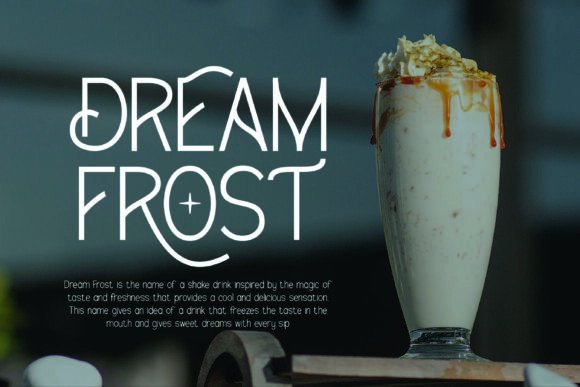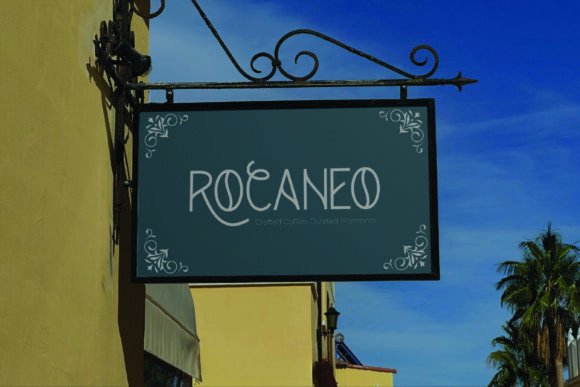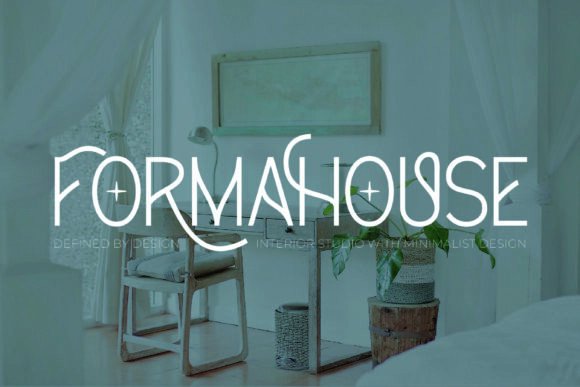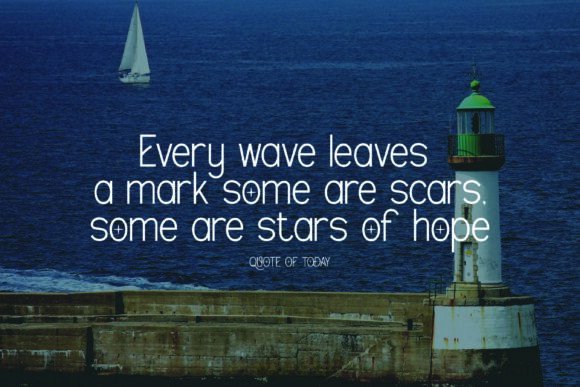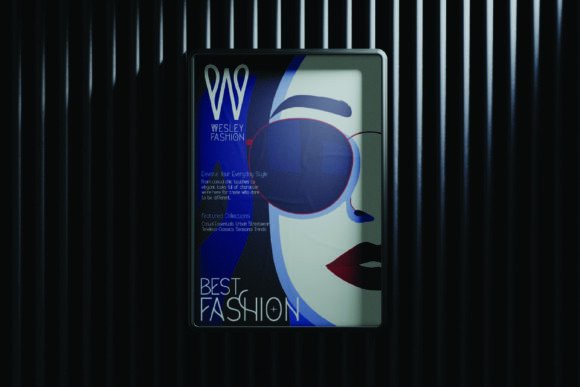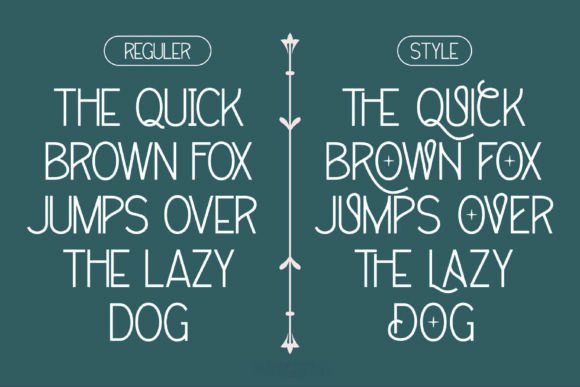
Introduction to Dermoso Font
Dermoso is a stylish sans serif font that blends modern clarity with a twist of creative flair.
With its clean lines, graceful loops, and uniquely formed letter shapes, Dermoso captures both minimalism and personalityโmaking it an exceptional choice for branding and editorial designs that need a distinctive, fashion-forward voice Crafted for high impact and elegance, Dermoso excels in applications like fashion branding, beauty packaging, signage, and boutique promotions.
Key Features of Dermoso Font
Why Choose Dermoso Font?